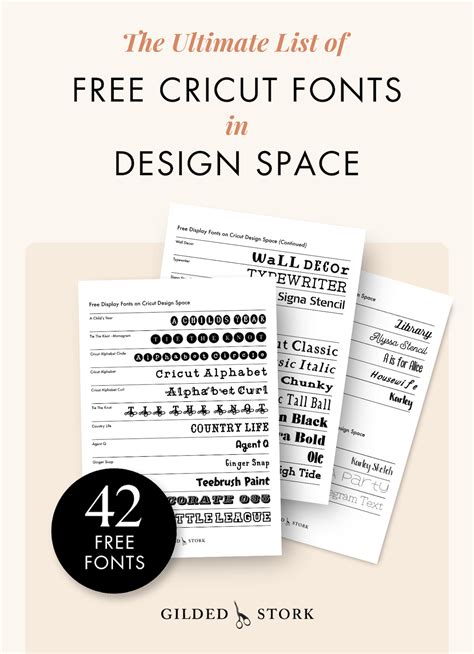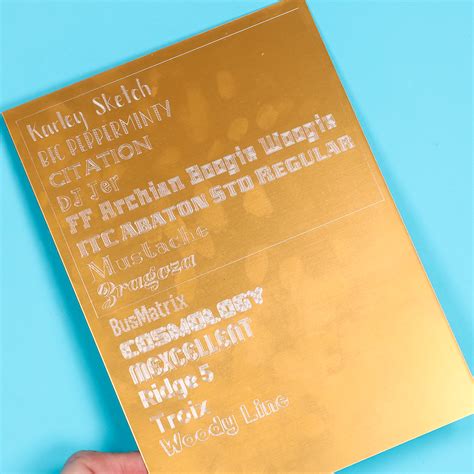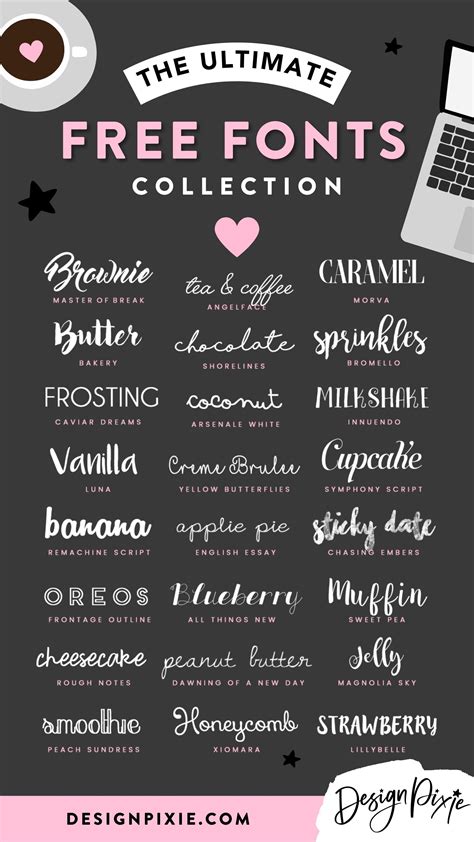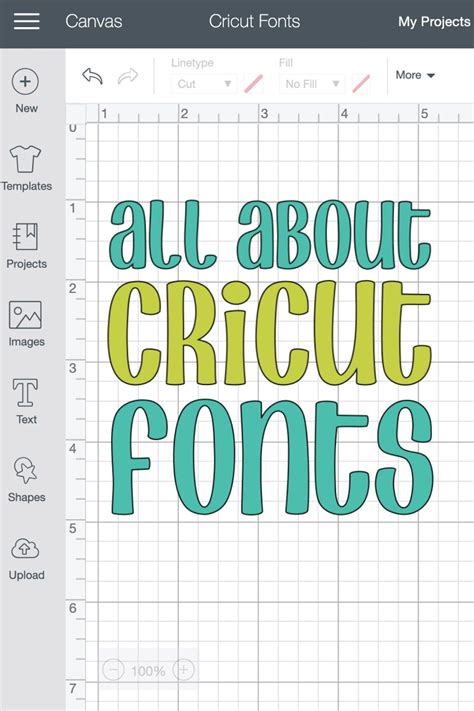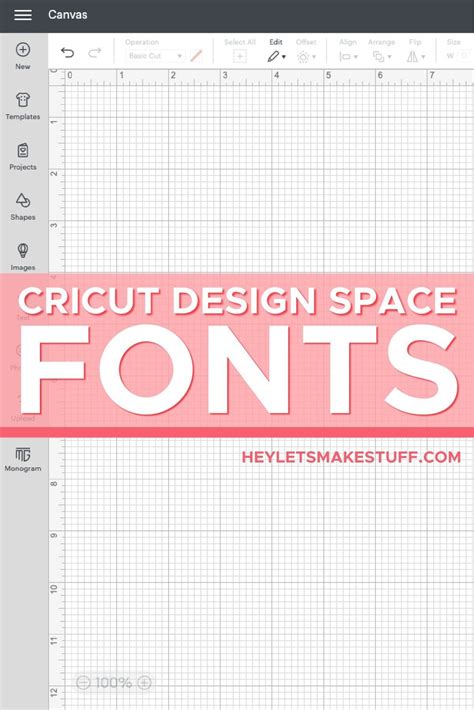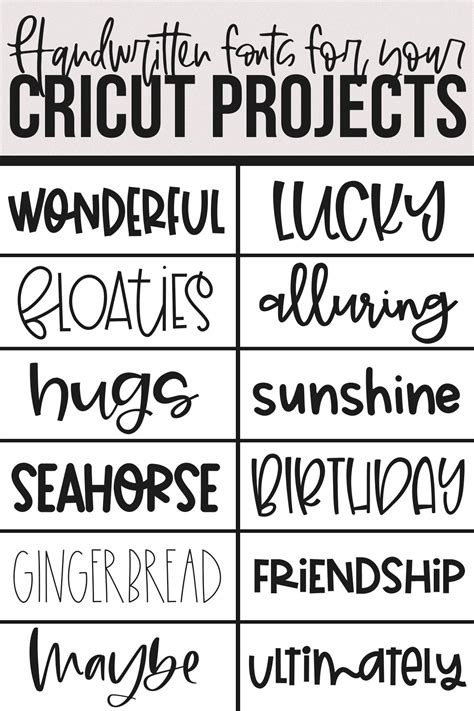
Embarking on a creative journey with your Cricut machine opens up a world of possibilities, and one of the most exciting aspects is exploring the vast array of Cricut Design Space Fonts. Whether you're a seasoned crafter or just starting out, understanding how to utilize and customize fonts can significantly enhance your projects. This guide will walk you through everything you need to know about Cricut Design Space Fonts, from selecting the perfect typeface to advanced customization techniques.
Understanding Cricut Design Space Fonts
Cricut Design Space Fonts are a crucial element in any crafting project. They allow you to add a personal touch to your designs, making them unique and visually appealing. Cricut Design Space offers a wide range of built-in fonts, but you can also upload your own custom fonts to further expand your creative options.
Getting Started with Cricut Design Space Fonts
Before diving into the world of Cricut Design Space Fonts, it's essential to familiarize yourself with the basics of the Cricut Design Space software. Here’s a step-by-step guide to help you get started:
- Launch Cricut Design Space: Open the Cricut Design Space application on your computer or mobile device.
- Create a New Project: Click on the "New Project" button to start a fresh design.
- Access the Text Tool: Click on the text icon in the left-hand toolbar to open the text editing options.
- Select a Font: In the text editing panel, you can browse through the available Cricut Design Space Fonts and select the one that best fits your project.
Once you have selected a font, you can start typing your text. The text will automatically appear on the canvas, and you can adjust its size, color, and other properties using the tools provided.
Exploring Built-In Cricut Design Space Fonts
Cricut Design Space comes with a variety of built-in fonts that cater to different styles and themes. These fonts are categorized into several groups, making it easy to find the perfect match for your project. Some of the popular categories include:
- Serif Fonts: These fonts have small decorative strokes at the ends of the main strokes of the letters. They are often used for formal and elegant designs.
- Sans-Serif Fonts: These fonts do not have the decorative strokes and are known for their clean and modern look. They are versatile and can be used in a wide range of projects.
- Script Fonts: These fonts mimic handwriting and are perfect for adding a personal touch to your designs. They are often used for invitations, cards, and other special occasions.
- Display Fonts: These fonts are designed to be eye-catching and are often used for headlines and titles. They come in various styles, from bold and dramatic to playful and whimsical.
To explore the built-in Cricut Design Space Fonts, simply click on the font dropdown menu in the text editing panel. You can scroll through the list or use the search bar to find specific fonts. Once you find a font you like, click on it to apply it to your text.
Uploading Custom Fonts to Cricut Design Space
While the built-in Cricut Design Space Fonts offer a wide range of options, you may want to use custom fonts to make your projects truly unique. Uploading custom fonts to Cricut Design Space is a straightforward process. Here’s how you can do it:
- Open Cricut Design Space: Launch the Cricut Design Space application.
- Create a New Project: Start a new project by clicking on the "New Project" button.
- Access the Text Tool: Click on the text icon in the left-hand toolbar to open the text editing options.
- Select the Custom Font: In the font dropdown menu, you should now see the custom font you installed. Select it to apply it to your text.
Note that custom fonts may not always appear in the font dropdown menu immediately. If you don’t see your custom font, try restarting Cricut Design Space or your computer.
💡 Note: Ensure that the custom font you are using is licensed for commercial use if you plan to sell your crafted items.
Customizing Cricut Design Space Fonts
Once you have selected a font, you can customize it to better suit your project. Cricut Design Space offers several tools for font customization, allowing you to create unique and personalized designs. Here are some of the key customization options:
- Font Size: Adjust the size of the text to fit your design. You can increase or decrease the size using the size slider in the text editing panel.
- Font Color: Change the color of the text to match your project’s color scheme. You can select from a variety of pre-set colors or use the color picker to choose a custom color.
- Font Style: Apply different styles to your text, such as bold, italic, or underline. These styles can add emphasis and visual interest to your design.